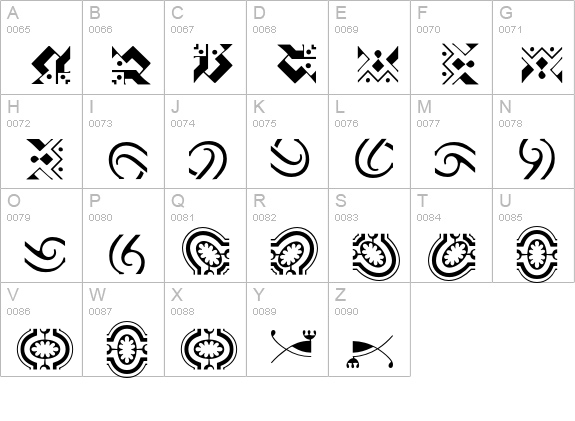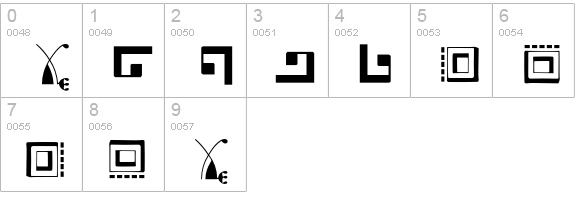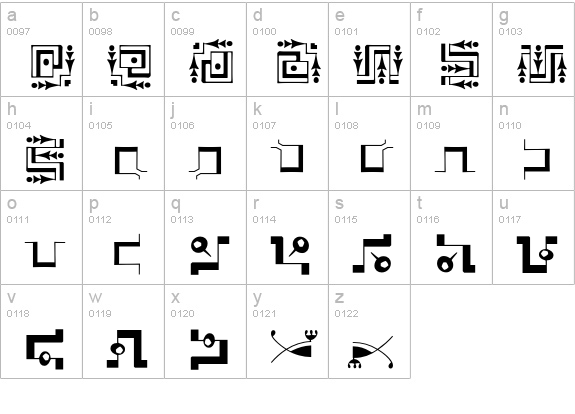
Caravan LH Two Font Details
Caravan LH Two is a beautifully crafted font that exudes elegance and sophistication. Its sleek and modern design makes it perfect for a wide range of design projects, from branding to editorial design. The font features clean lines and a unique style that will make your creations stand out. With its versatile nature, Caravan LH Two can be used for both headings and body text, adding a touch of class to any project. The best part? Caravan LH Two is available for free! You can download this stunning font at FontsMarket.com and start using it in your designs right away. Whether you're working on a website, a poster, or a logo, Caravan LH Two is sure to impress with its timeless appeal. Don't miss out on this opportunity to enhance your designs with this exceptional font. Download Caravan LH Two today and elevate your projects to new heights.